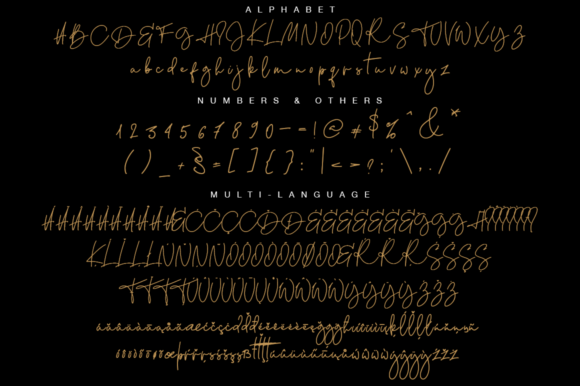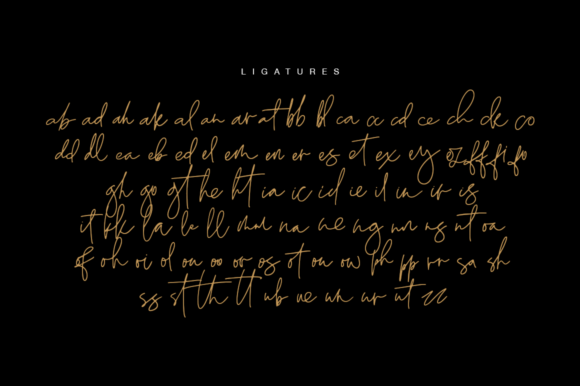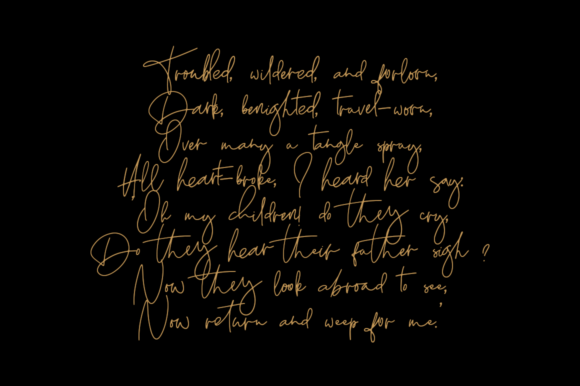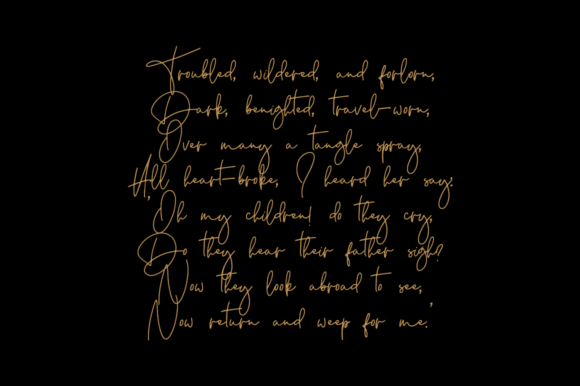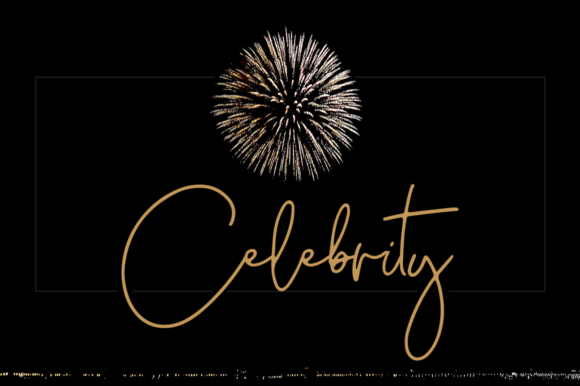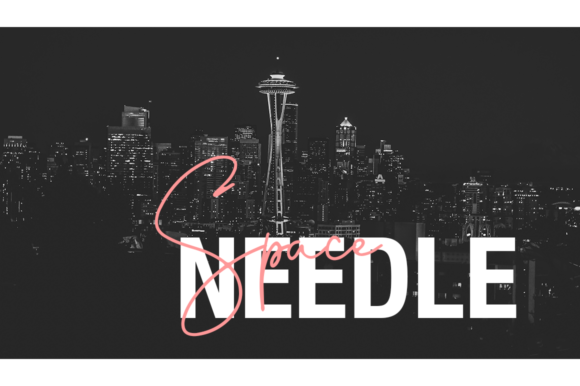
Introducing Claster Font: The Perfect Handmade Calligraphy Font for Your Creative Projects
Are you a designer, crafter, or DIY enthusiast looking for a unique and fresh font to elevate your creative projects? Look no further than Claster Font, a beautiful handmade calligraphy font that’s perfect for a variety of applications. In this article, we’ll take a closer look at Claster Font, its features, and how you can use it to add a personal touch to your designs.
What is Claster Font?
Claster Font is a new and exciting handmade calligraphy font that’s designed to bring a touch of elegance and sophistication to your designs. With its unique and fresh style, Claster Font is perfect for anyone looking to add a personal touch to their creative projects. Whether you’re working on a greeting card, branding materials, business cards, quotes, posters, or more, Claster Font is the perfect choice.
Key Features of Claster Font
So, what makes Claster Font so special? Here are just a few of its key features:
- Handmade with love: Claster Font is a handmade calligraphy font, which means that every letter and character is carefully crafted to ensure a unique and personal touch.
- Fresh and modern style: Claster Font has a fresh and modern style that’s perfect for designers and crafters who want to add a touch of elegance to their designs.
- Highly versatile: Claster Font is highly versatile and can be used for a variety of applications, including greeting cards, branding materials, business cards, quotes, posters, and more.
How to Use Claster Font in Your Designs
Now that we’ve covered the key features of Claster Font, let’s take a look at how you can use it in your designs. Here are just a few ideas to get you started:
- Greeting cards: Add a personal touch to your greeting cards with Claster Font. Whether you’re creating birthday cards, wedding cards, or holiday cards, Claster Font is the perfect choice.
- Branding materials: Use Claster Font to create beautiful branding materials, such as logos, business cards, and letterheads.
- Quotes and posters: Add a touch of elegance to your quotes and posters with Claster Font. Whether you’re creating inspirational quotes or promotional posters, Claster Font is the perfect choice.
- Social media graphics: Use Claster Font to create beautiful social media graphics, such as Facebook posts, Instagram stories, and Twitter headers.
Tips and Tricks for Using Claster Font
Here are just a few tips and tricks for using Claster Font in your designs:
- Experiment with different colors: Claster Font looks great in a variety of colors, so don’t be afraid to experiment and find the perfect color for your design.
- Use it with other fonts: Claster Font pairs well with other fonts, so try using it with a bold font or a clean sans-serif font to create a unique look.
- Pay attention to spacing: Make sure to pay attention to spacing when using Claster Font. You can adjust the spacing to create a more elegant or playful look, depending on your design.
In conclusion, Claster Font is a beautiful handmade calligraphy font that’s perfect for designers, crafters, and DIY enthusiasts. With its unique and fresh style, Claster Font is highly versatile and can be used for a variety of applications. Whether you’re creating greeting cards, branding materials, quotes, posters, or more, Claster Font is the perfect choice. So why wait? Download Claster Font today and start adding a personal touch to your designs!